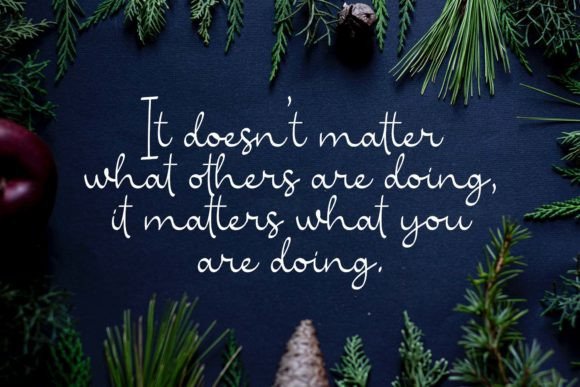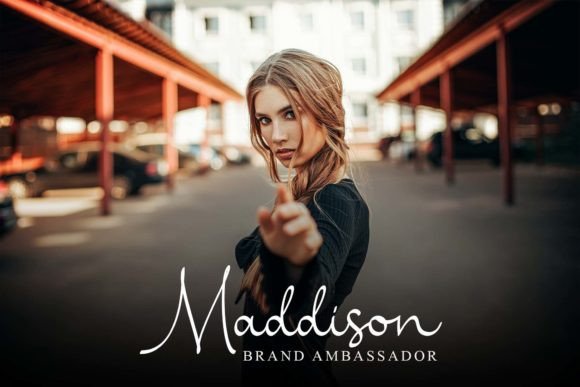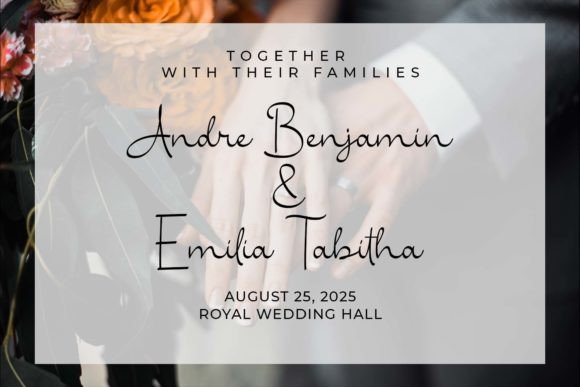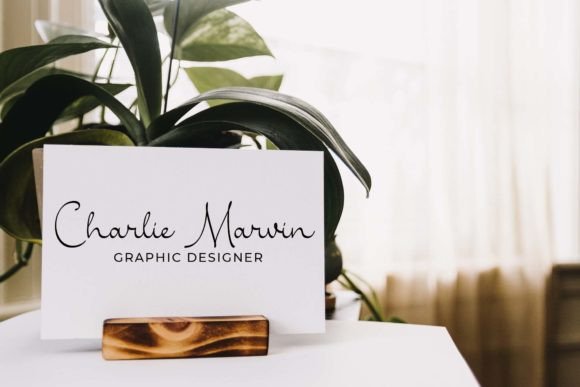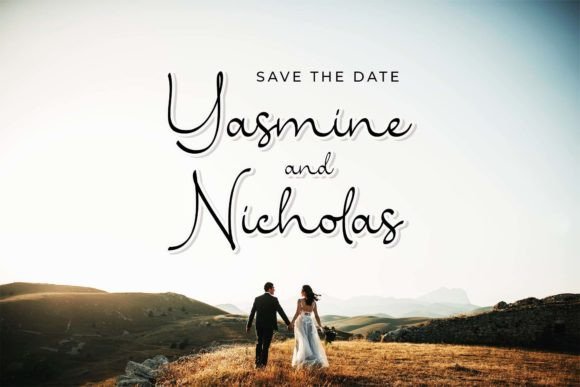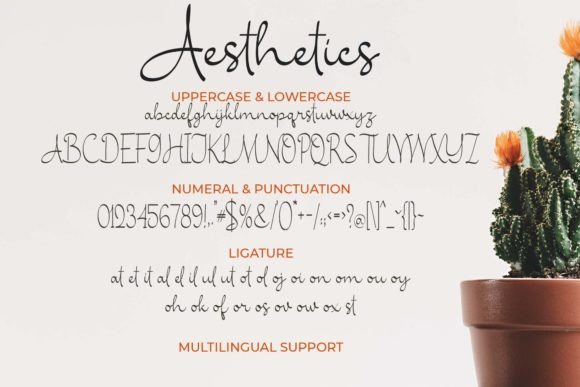
The Aesthetics Font: Elevate Your Designs with Elegance and Creativity
In the world of typography, fonts play a crucial role in conveying the tone and personality of a design. For designers and crafters seeking to add a touch of sophistication and artistic flair to their projects, the Aesthetics Font is an exceptional choice. This beautiful and expressive script and handwritten typeface embodies creativity, making it perfect for a wide range of applications, from invitations and branding to artistic projects.
What is the Aesthetics Font?
The Aesthetics Font is a carefully crafted typeface that boasts fluid strokes and intricate details, giving it a unique and captivating appearance. Its elegant and refined aesthetic makes it an ideal choice for designers looking to add a touch of luxury and sophistication to their designs. Whether you’re working on a wedding invitation, a brand identity, or an artistic project, this font is sure to make a lasting impression.
Key Features of the Aesthetics Font
• Fluid Strokes: The Aesthetics Font features smooth, flowing strokes that give it a dynamic and expressive feel.
• Intricate Details: The font’s intricate details add a level of sophistication and elegance, making it perfect for high-end designs.
• Script and Handwritten Style: The Aesthetics Font combines the best of both worlds, blending the elegance of script fonts with the personal touch of handwritten typography.
• Unique Style: This font’s distinctive style sets it apart from more traditional typefaces, making it a great choice for designers looking to stand out.
The Aesthetics Font is versatile and can be used in a wide range of projects, including:
• Invitations: Add a touch of elegance to wedding invitations, birthday party invites, and other special occasion announcements.
• Branding: Use the Aesthetics Font to create a sophisticated brand identity that reflects your company’s values and personality.
• Artistic Projects: This font is perfect for artists, illustrators, and designers looking to add a touch of creativity and flair to their work.
Why Choose the Aesthetics Font?
With so many fonts available, why choose the Aesthetics Font? Here are just a few reasons:
• Unique Style: The Aesthetics Font offers a distinctive style that will set your designs apart from the crowd.
• Elegance and Sophistication: This font exudes elegance and sophistication, making it perfect for high-end designs.
• Versatility: The Aesthetics Font can be used in a wide range of projects, from invitations to branding and artistic projects.
Tips for Using the Aesthetics Font
To get the most out of the Aesthetics Font, here are a few tips:
• Use it Sparingly: Because of its elegant and sophisticated nature, it’s best to use the Aesthetics Font sparingly to avoid overwhelming the design.
• Pair it with Other Fonts: Experiment with pairing the Aesthetics Font with other fonts to create a unique and visually appealing combination.
• Adjust the Size and Color: Play around with different sizes and colors to find the perfect combination for your design.
The Aesthetics Font is a beautiful and expressive script and handwritten typeface that embodies artistic flair and creativity. With its fluid strokes and intricate details, this font adds a touch of elegance and personality to any design. Perfect for invitations, branding, and artistic projects, the Aesthetics Font is a versatile and sophisticated choice that is sure to make a lasting impression. Whether you’re a designer or crafter, this font is a must-have in your typography arsenal.